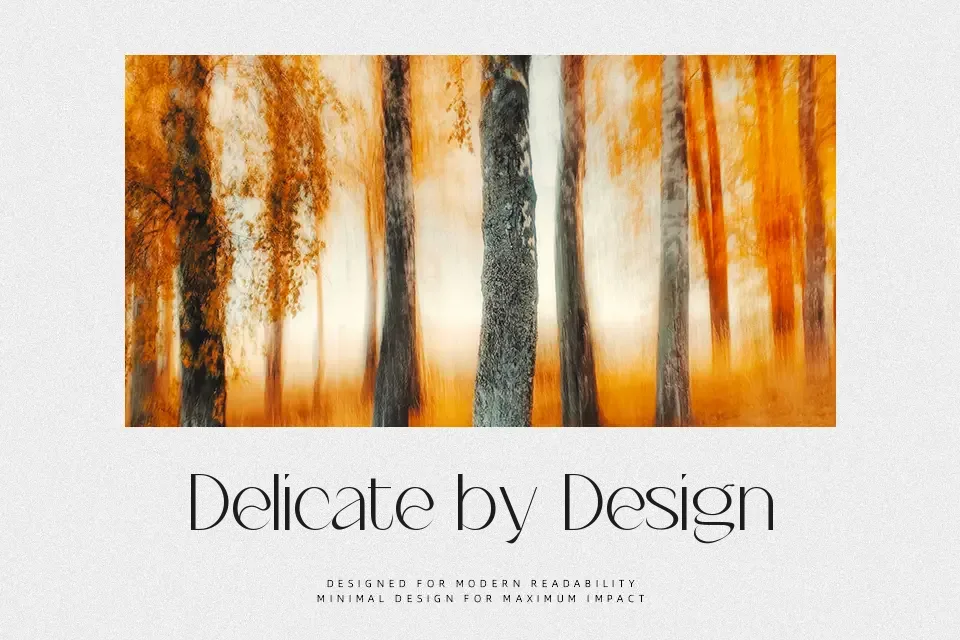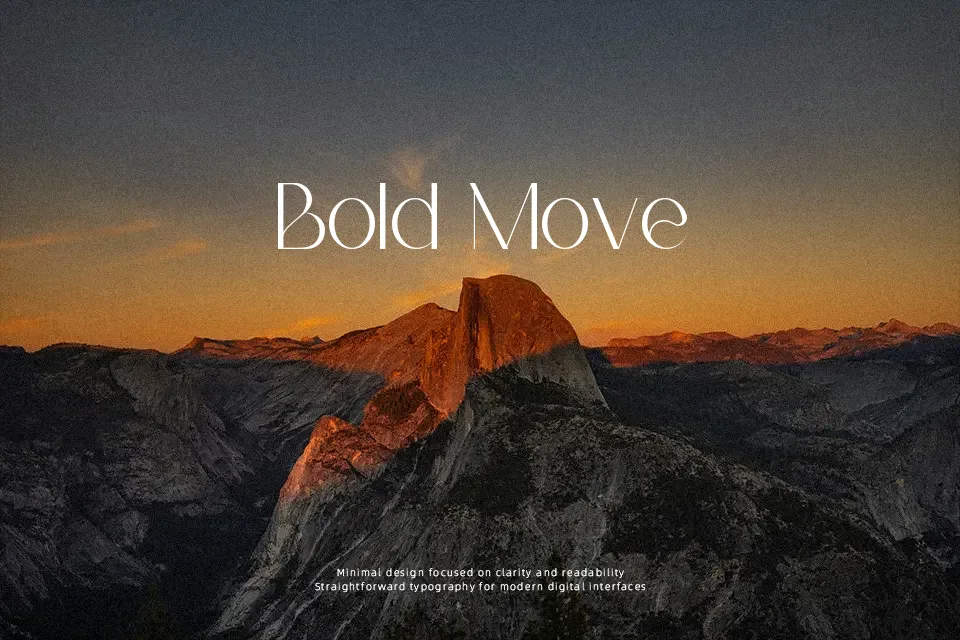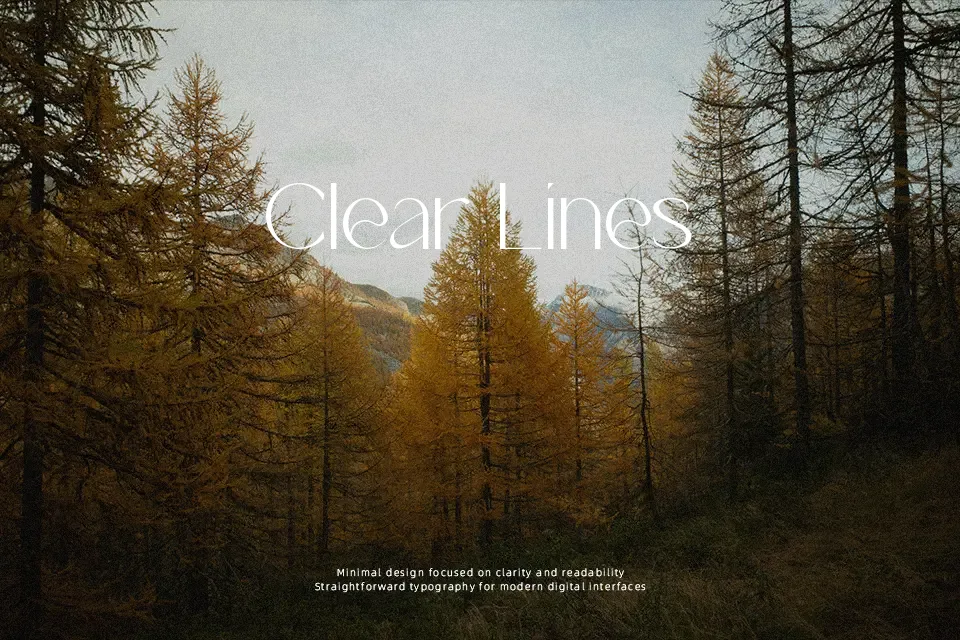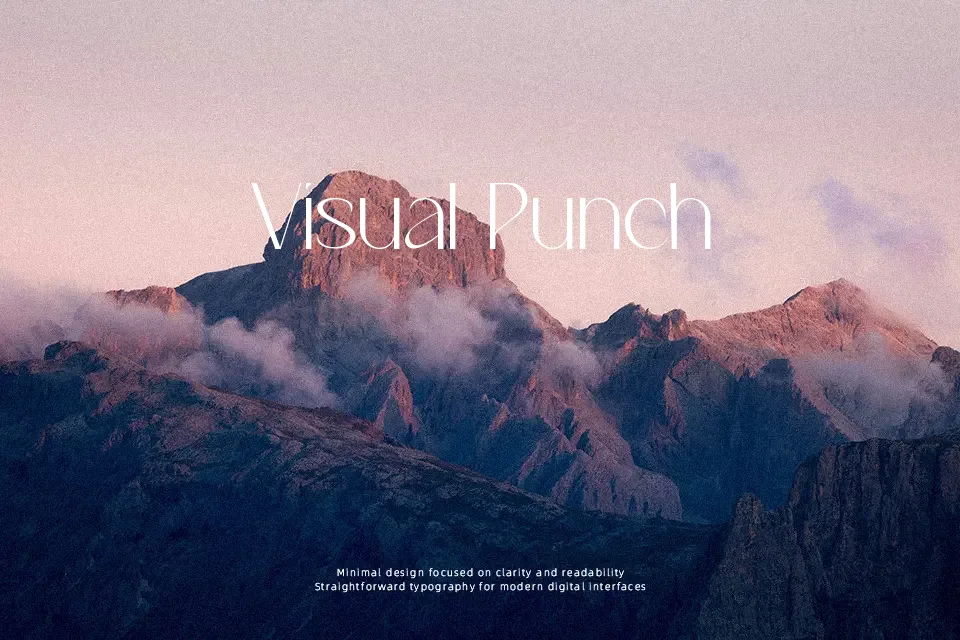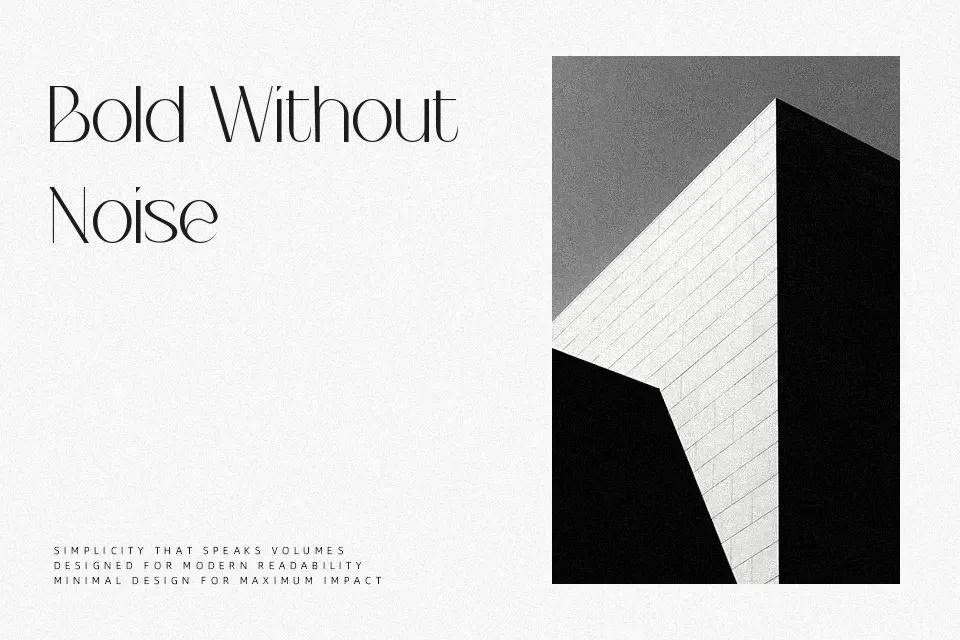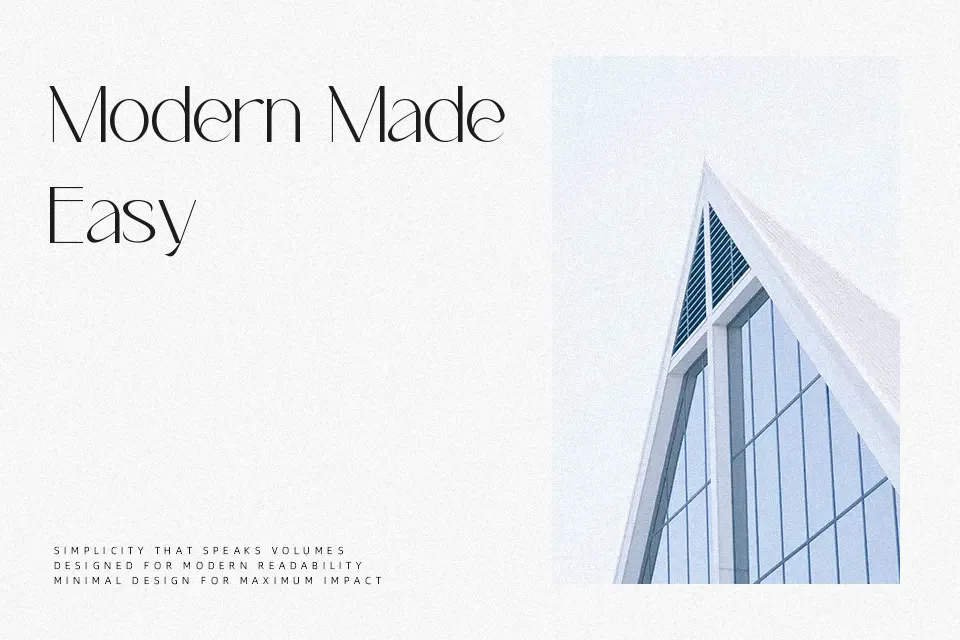
Cheekbone Font
Cheekbone Font is a display sans serif typeface characterized by dramatic stroke contrast, flared terminals, and stylized retro geometry. Its uppercase characters feature pronounced widths and balanced internal spacing, allowing individual glyphs to stand out cleanly in title arrangements. Moderate letter spacing preserves character definition across large text layouts, ensuring headlines and packaging headers remain legible from a distance. The pronounced contrast provides noticeable visual rhythm in poster compositions. However, the exaggerated stroke variations reduce clarity when scaled down to small interface labels or dense editorial body copy. For optimal balance, the typeface performs best when displayed at medium to large sizes where its expressive letterforms can breathe.
Best For: vintage product packaging, music festival posters, apparel graphics, magazine cover titles
Not Ideal For: long paragraph text, mobile app body copy, technical spreadsheets, dense legal documentation